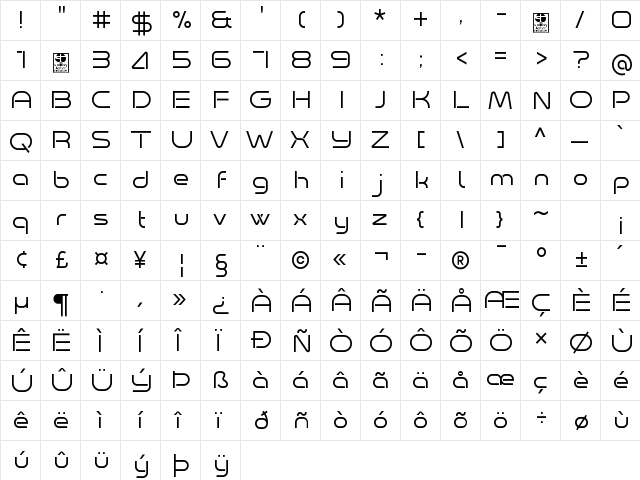
Minalis_Demo Light Regular
| Foundry | StudioTypo |
| Designer | Mehmet Abac |
Design Context for Minalis_Demo Light Typeface
Minalis_Demo Light offers clean, dependable letterforms without strong stylistic allegiance, making it a practical choice for designers who need flexibility. Its slender proportions lend an understated elegance to any composition.